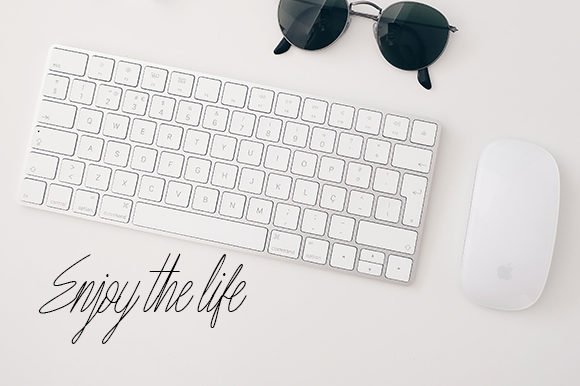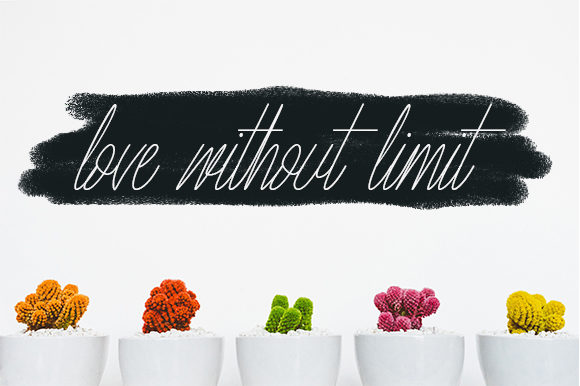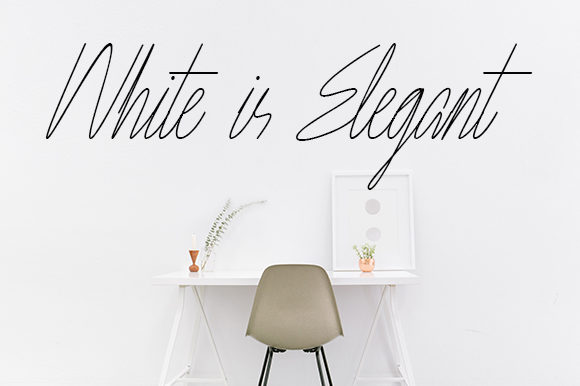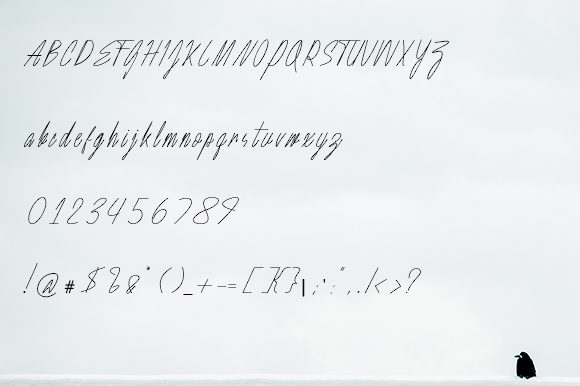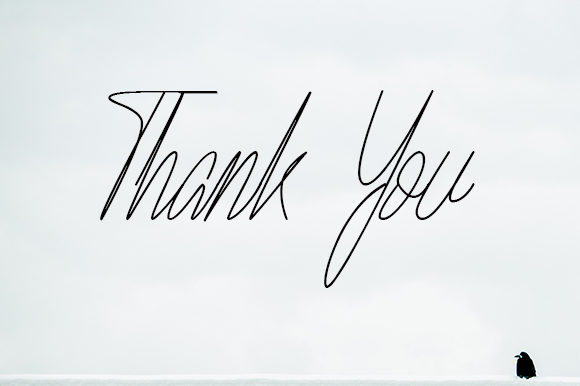
Town Hill Font
About Town Hill Font
Town Hill is a sweet and charming script with a cool twist. Use it to turn any design project into a true standout!